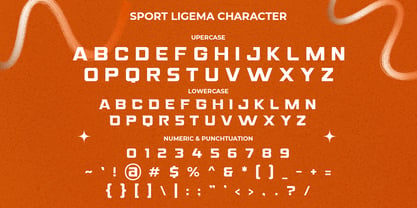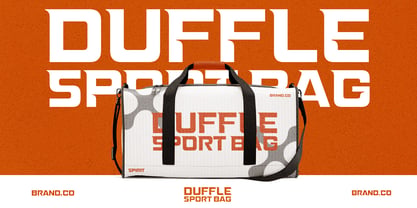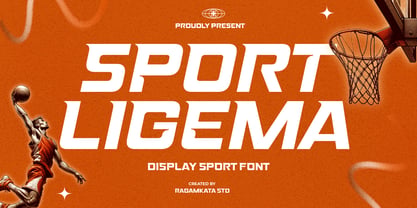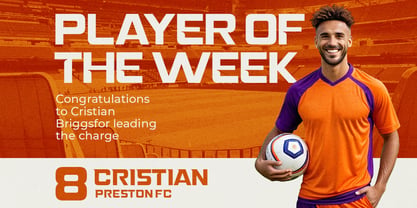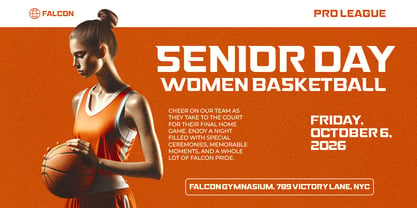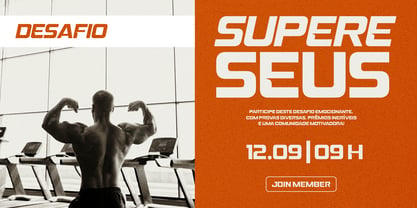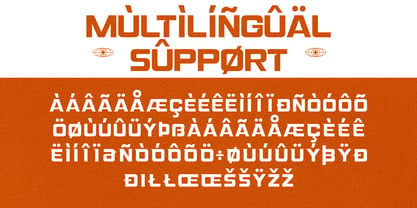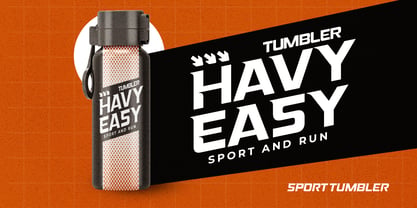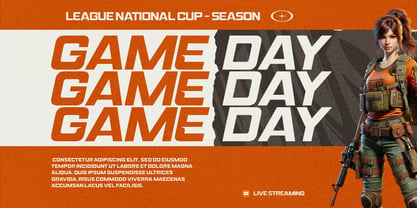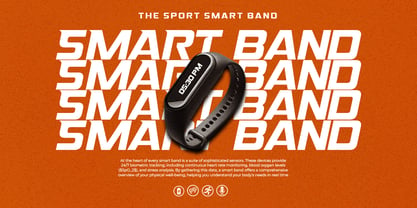
Sport Ligema
by RagamKata
The Sport Ligema Font Family was designed by Yogiswhara Dio Prakoso Riadi and published by RagamKata. Sport Ligema contains 2 styles and family package options. More about this family
Sport Ligema is a powerful display sport font designed to capture speed, strength, and competitive energy. With its bold structure, dynamic angles, and strong visual rhythm, this font delivers a high-impact athletic identity that instantly communicates motion and performance. Every letter is crafted to reflect power, agility, and modern sports aesthetics. Perfect for sports branding, jersey numbers, esports logos, team identities, event posters, fitness campaigns, gym branding, streetwear apparel, social media graphics, thumbnails, banners, and dynamic promotional materials. Sport Ligema brings an energetic and aggressive personality that makes your designs feel bold, competitive, and action-driven. Blending modern sports style with sharp display impact, Sport Ligema gives designers a versatile tool for high-performance visual communication. Whether used for professional sports branding, urban fashion projects, or energetic digital campaigns, this font ensures your work stands out with strength, clarity, and dynamic appeal. Thank You! Ragamkata